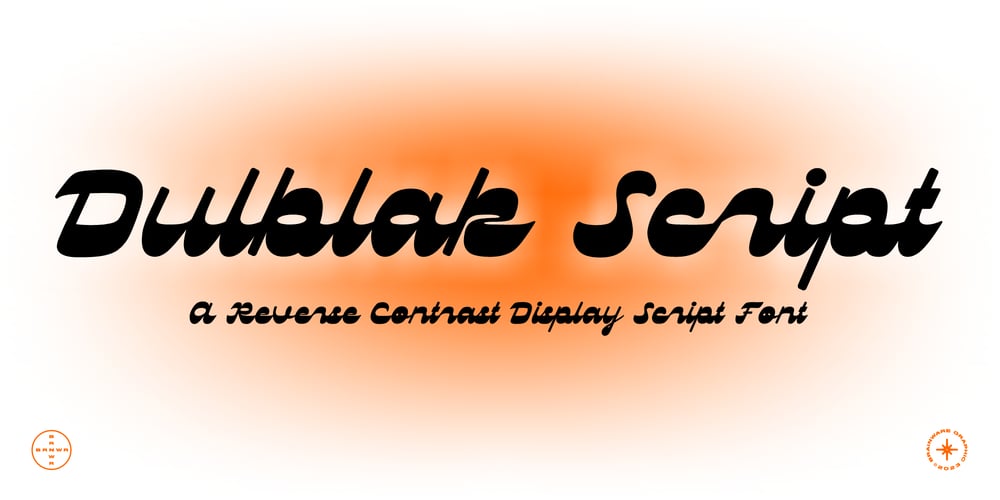
Dulblak Script Font Family was designed by Muhammad Jauhar Azmi and published by Brainware Graphic. Dulblak Script contains 1 styles and family package options. Dulblak Script is a reverse contrast display script font, bold and strong on horizontal stroke, legible and modern.